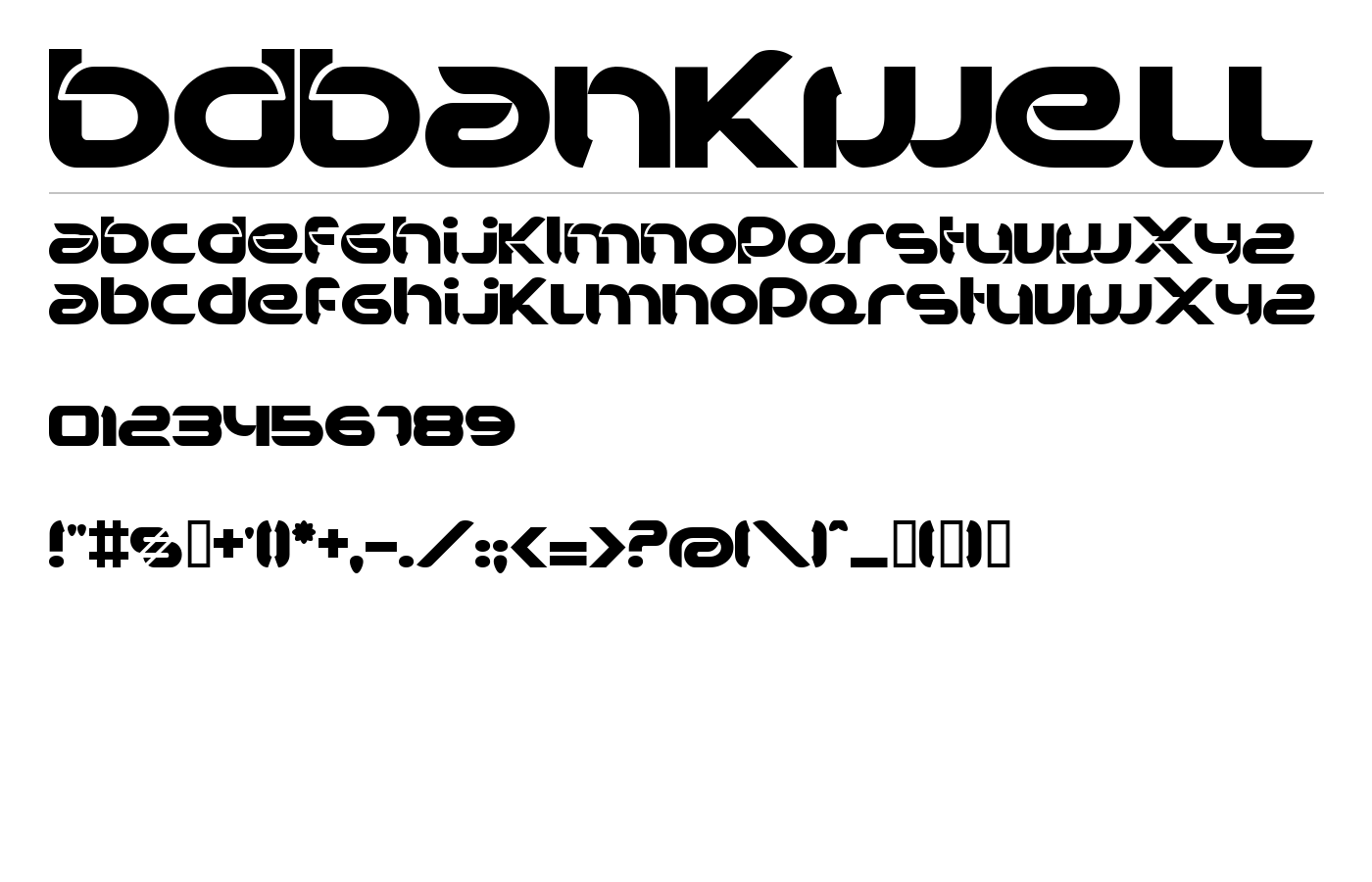
BD Bankwell is a bold, futuristic sans serif font with a unique geometric style and stylized shapes that lend it a modern, tech-forward look. Its wide letterforms and consistent thick strokes create strong visual impact, making it ideal for eye-catching headlines, branding, and packaging where a contemporary and innovative vibe is desired. This font stands out best in creative fields that seek to convey boldness and originality.
BD Bankwell Font
About BD Bankwell Font